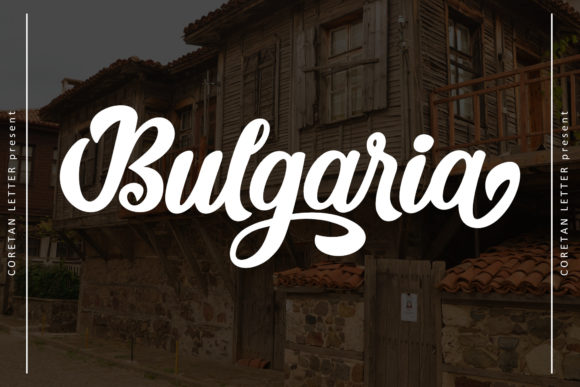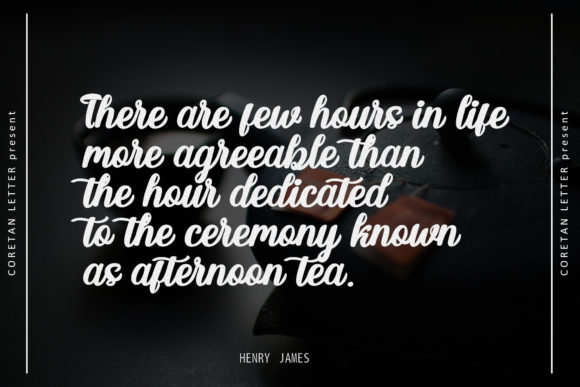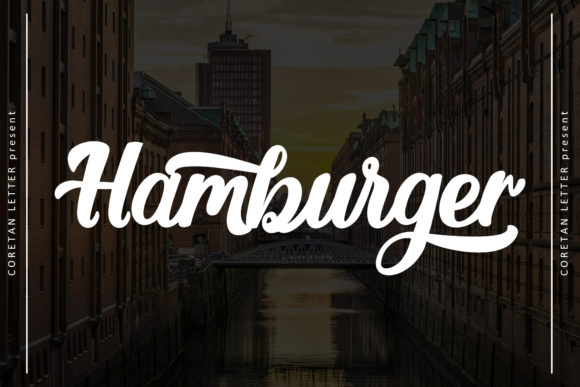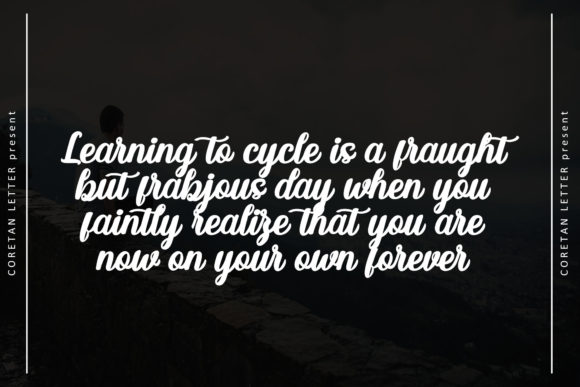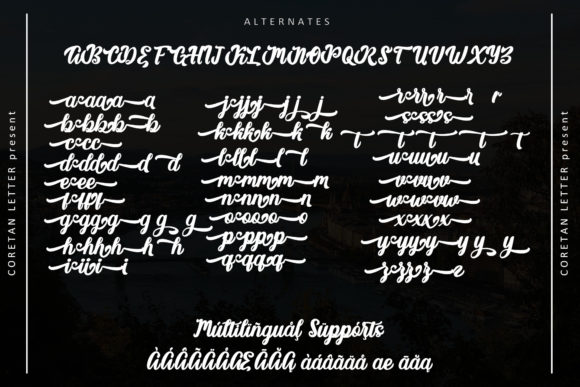
Morgantara Font
About Morgantara Font
Morgantara is a beautiful, bold and cursive script font. It is PUA encoded which means you can access all of the glyphs and swashes with ease!